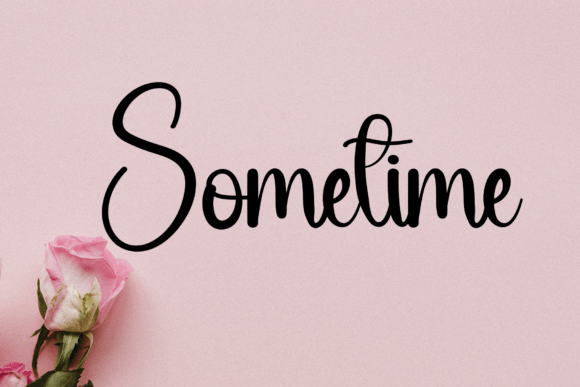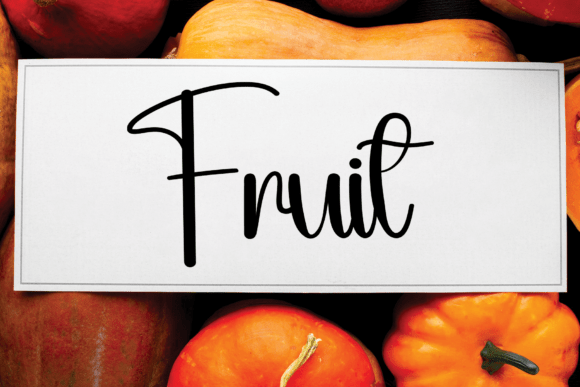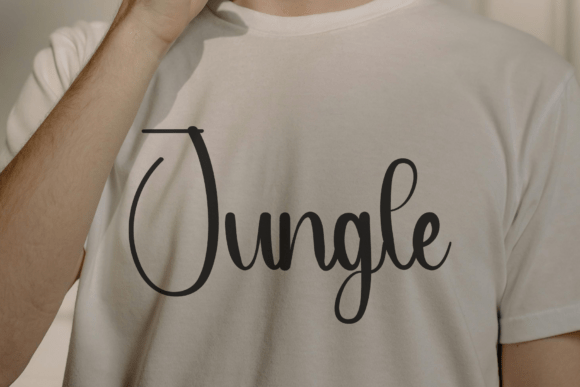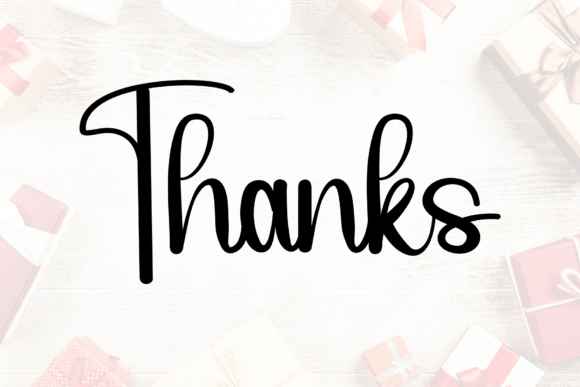
Introduction to Monday Newyear Font
Monday Newyear is a charming handwritten font filled with a sense of heartfelt perfection.
Its smooth strokes and organic lines evoke a relaxed atmosphere, making it perfect for a variety of design projects Whether used for branding, invitations, or social media graphics.